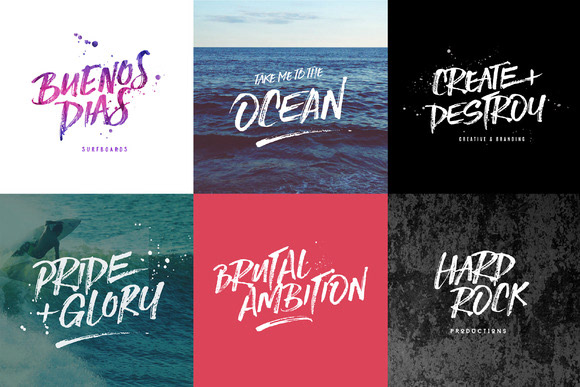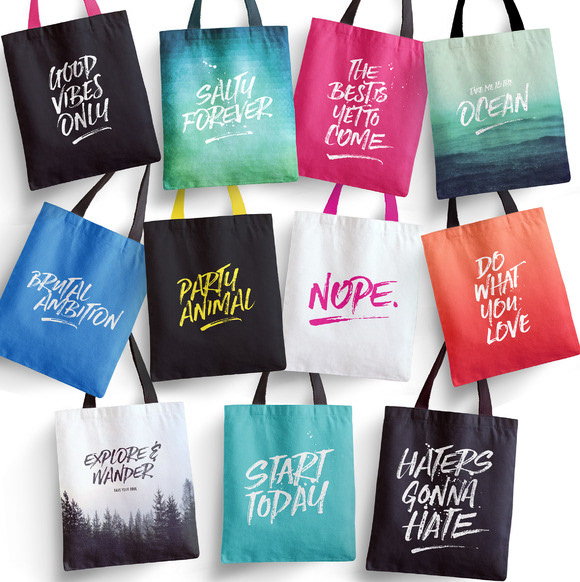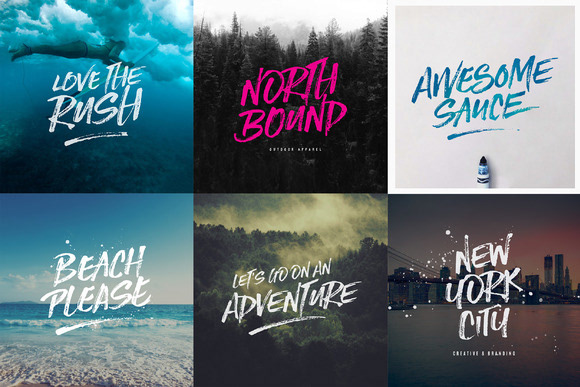
Introducing Stone Harbour! ...a punchy new Dry Marker Script ..with loads of attitude and extras.
I had SO. MUCH. FUN. making this font, and even MORE fun testing it out - I got started and just couldn't stop! - which is why this pack has so much inspiration for you guys :) Seriously - as soon as this baby is uploaded - I'm off to go play more :) I'm hoping you guys experience the same thing when you unwrap it and get stuck in! :)